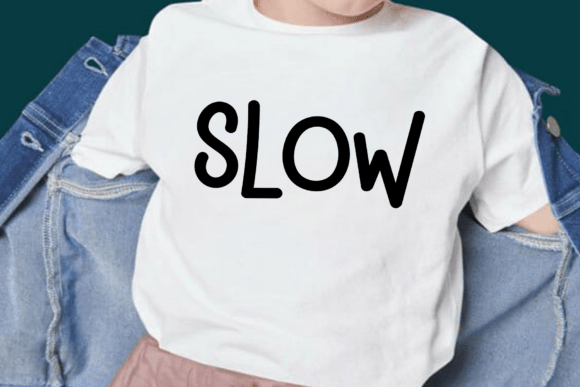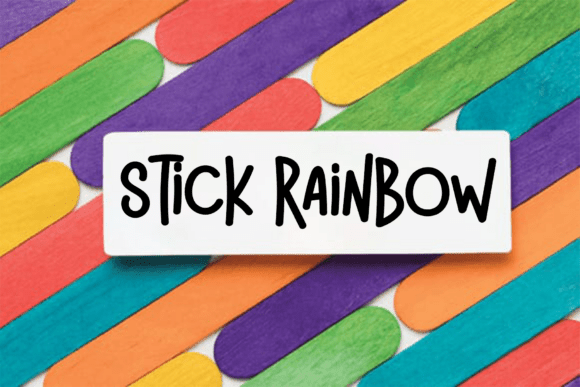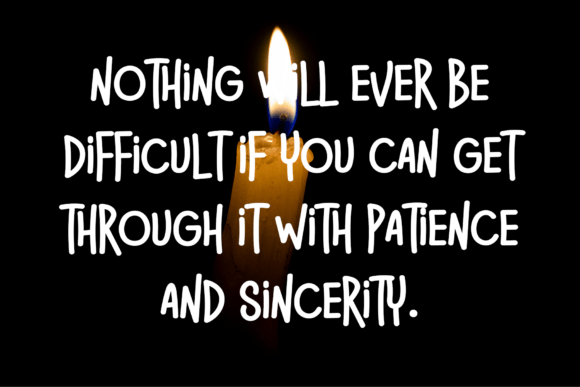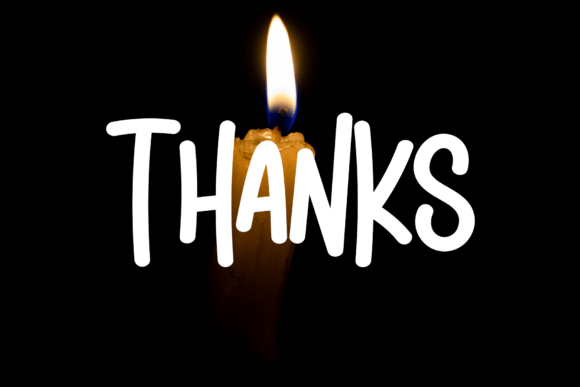
The Elegance of Imperfection: Discovering the Blackout Font
I’ll never forget the design project that led me to the Blackout font. I was working on a luxury branding campaign for a high-end fashion label, and my client specifically asked for a font that exuded elegance, sophistication, and a touch of human imperfection. I scoured the internet, tried out countless fonts, but nothing seemed to fit the bill. That was until I stumbled upon the Blackout font – a stunningly elegant and highly refined modern handwritten script font that embodied professional artistry.
What Makes the Blackout Font Special?
The Blackout font is a simple, handmade typeface that brings a tall, thin, and organic feel to your digital canvas. Its elongated strokes and slightly uneven letterforms mimic a quick, stylish marker sketch, giving your designs a luxurious and personalized touch. This font is ideal for high-end branding, “behind the scenes” content, organic packaging, and minimalist editorial designs where a machine-perfect font would feel too cold.
What I Love About Blackout ✨
- ✅ Elegant and sophisticated design that’s perfect for luxury branding
- ✅ Works exceptionally well in high-contrast environments
- ✅ Space-saving solution for long titles due to its narrow profile
- ⚠️ May not be suitable for body text due to its elegant, yet delicate design
- ⚠️ Limited use of bold weights, which may limit its versatility in certain designs
- Experiment with OpenType features, such as ligatures and stylistic alternates, to add more personality to your text
The Designer Inspiration Behind Blackout
The Blackout font was inspired by the works of renowned designers who sought to create a font that embodied the elegance of imperfection. The font’s creator drew inspiration from handwritten notes, marker sketches, and other organic sources to craft a font that’s both beautiful and human.
Q: What is the Blackout font best suited for?
A: The Blackout font is best suited for high-end branding, “behind the scenes” content, organic packaging, and minimalist editorial designs.
Q: Can I use the Blackout font for body text?
A: While the Blackout font is highly legible, it may not be suitable for body text due to its elegant, yet delicate design. It’s best used for headlines, titles, and short paragraphs.
Q: Is the Blackout font suitable for digital use?
A: Yes, the Blackout font is optimized for digital use and works exceptionally well in high-contrast environments.
Q: Can I pair the Blackout font with other fonts?
A: Yes, the Blackout font pairs well with a wide-tracked geometric sans-serif font, such as Maison Neue, to create a sophisticated, modern layout.